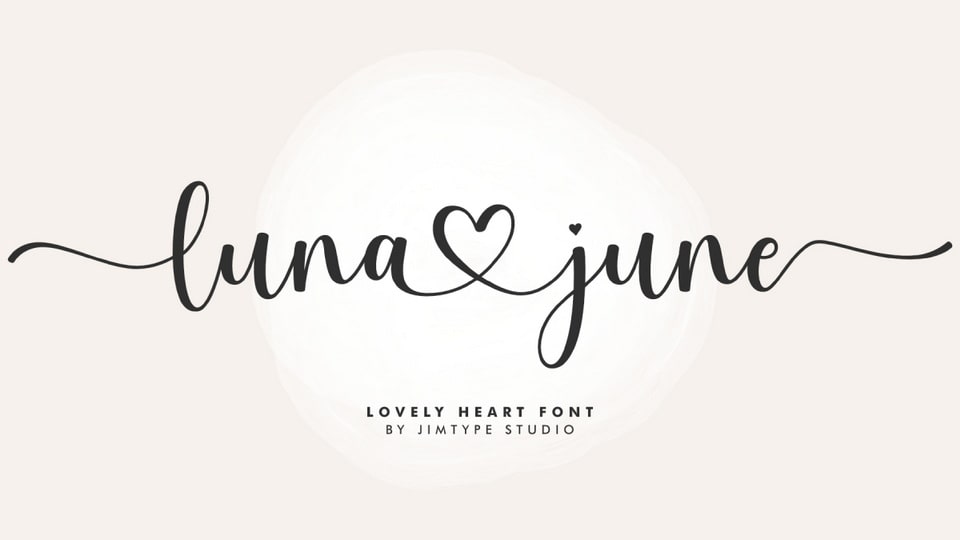
Download Luna June font, a sweet, lovely, and modern calligraphy typeface with a connected heart. This beautiful script is particularly well suited for wedding invitations, logos, branding.